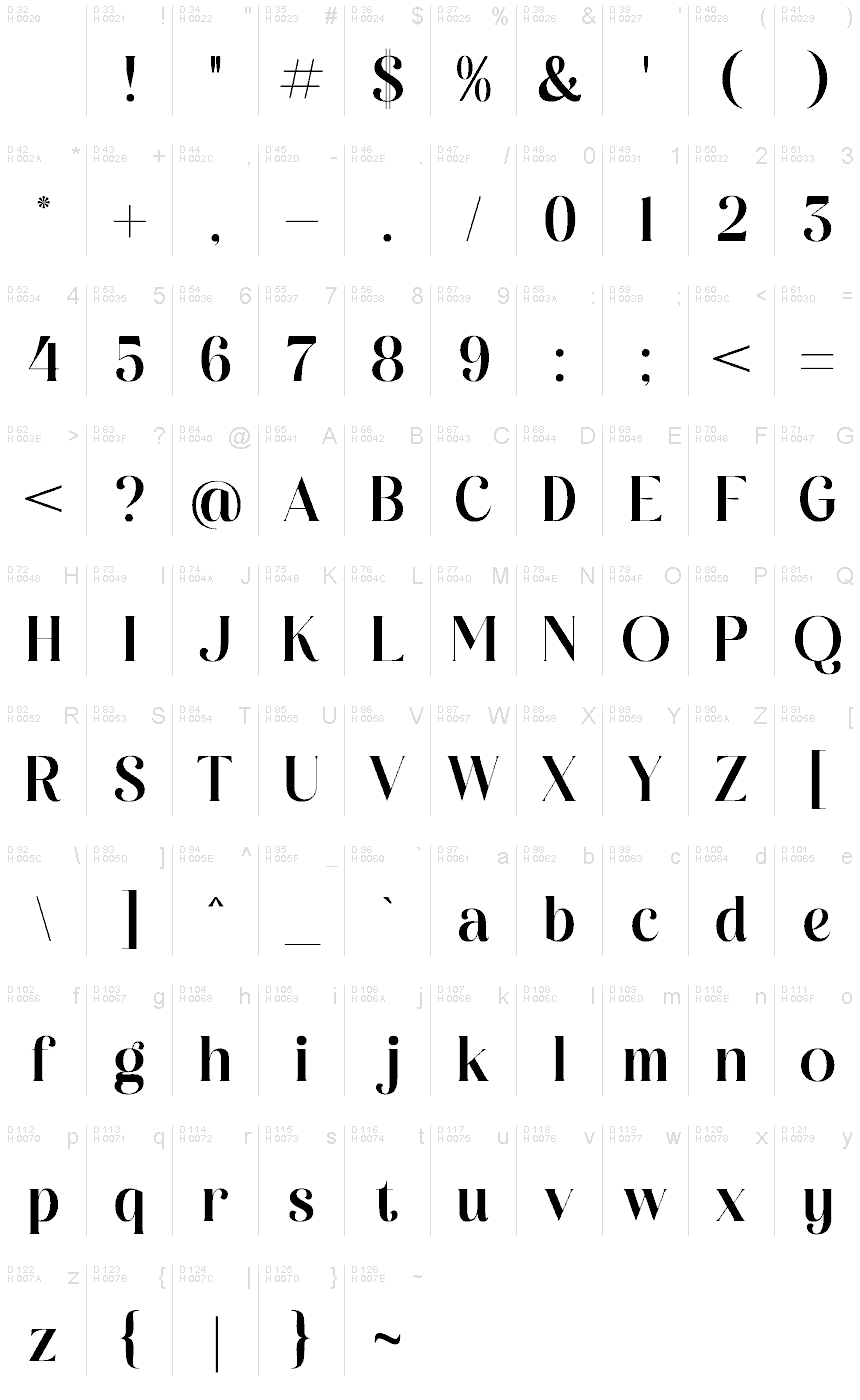
Mockads
Mockads font by Storytype Studio is an elegant free serif font that embodies a sophisticated and refined classic style. Its high contrast and modern twist give it a timeless touch that looks great in both its large capitalized characters and its recurrent ligature shapes.
Use it for fashion magazine titles, front covers, vintage designs, beauty identity projects, cosmetic products packaging, branding designs, clothing tags and labels, advertising graphics of all kinds online or printed.